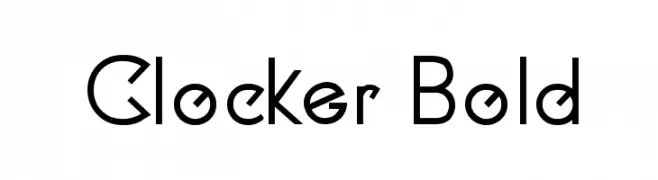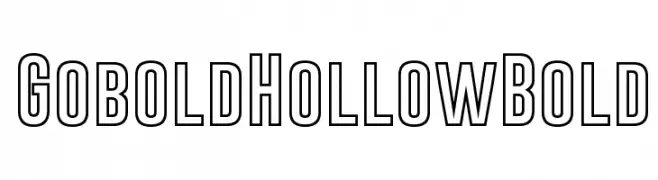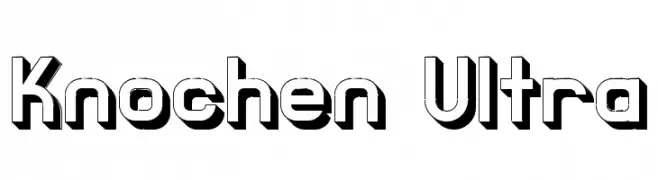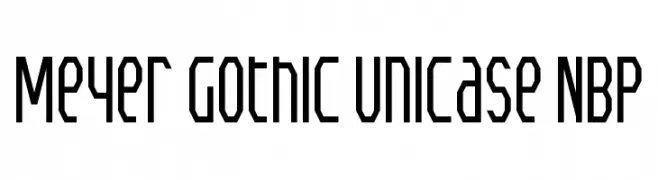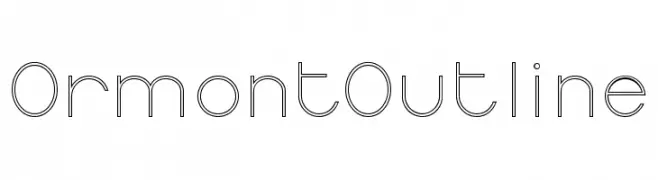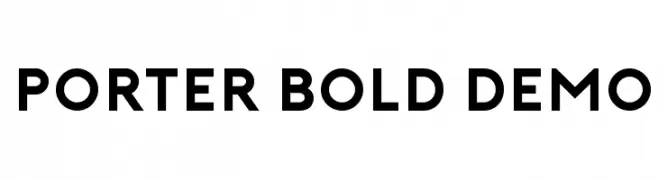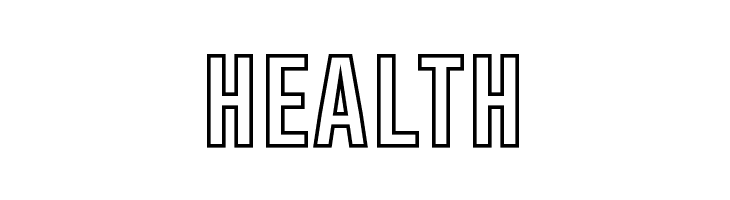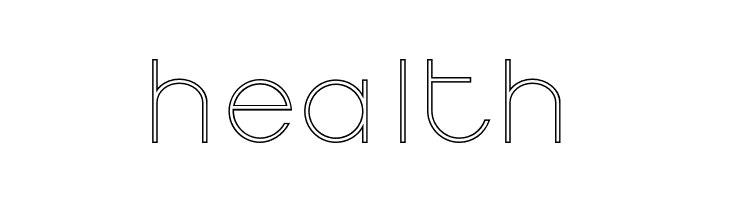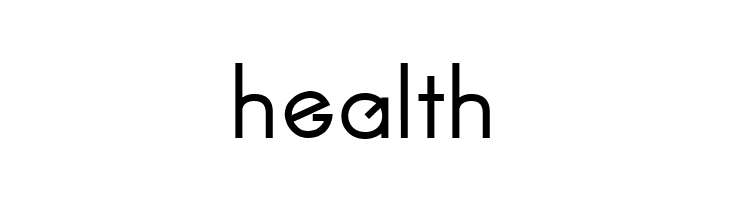
A bold, hollow font with geometric lines and a modern, structured appearance.
A modern, geometric outline font with clean lines and minimalistic design.
A tall, narrow font with clean lines and a modern, sleek appearance.
A bold, geometric font with clean lines and a modern aesthetic.
A bold, modern sans-serif font with clean lines and geometric structure.
A bold, modern sans-serif font with clean lines and uniform strokes.
A bold, 3D-effect font with geometric shapes and clean lines.